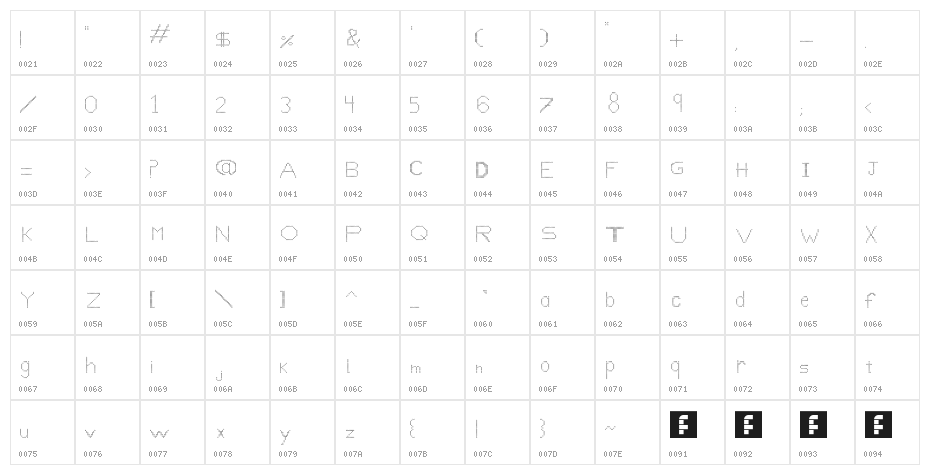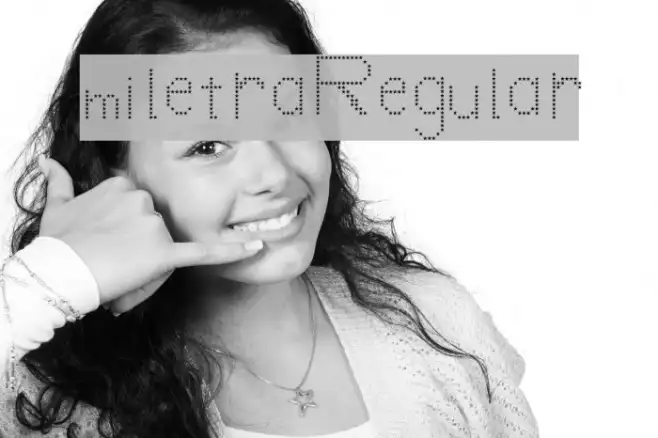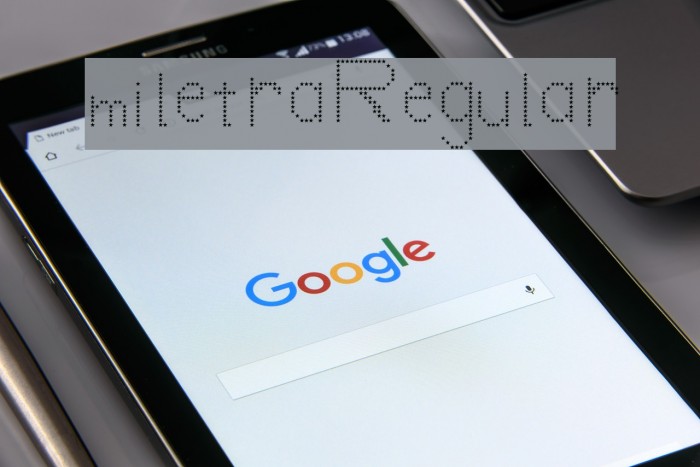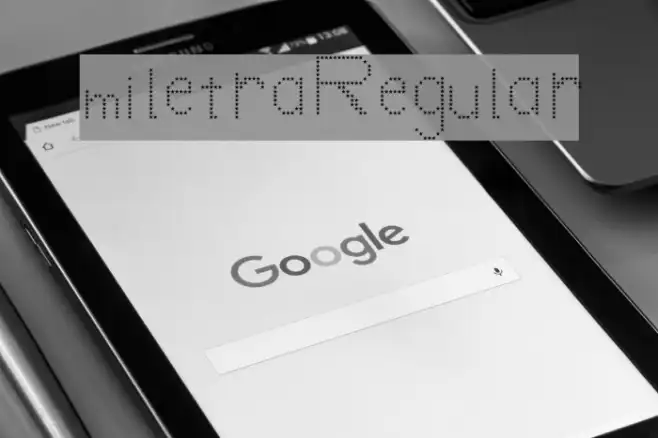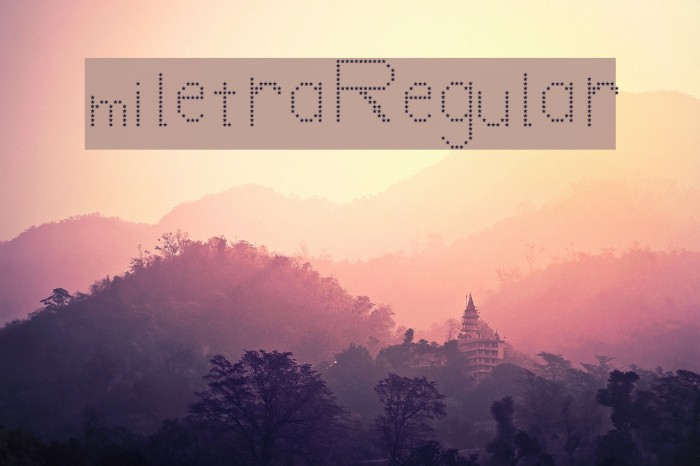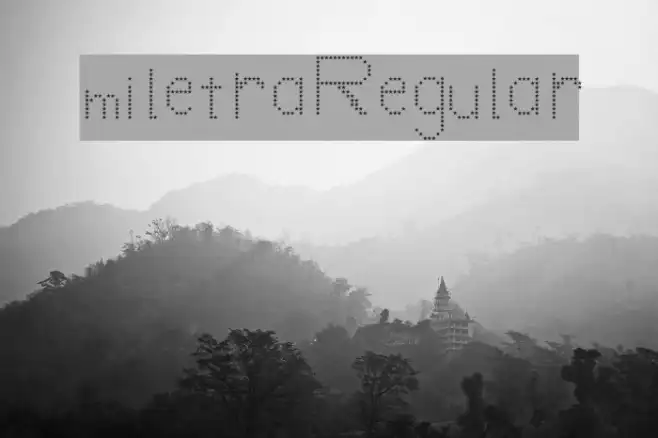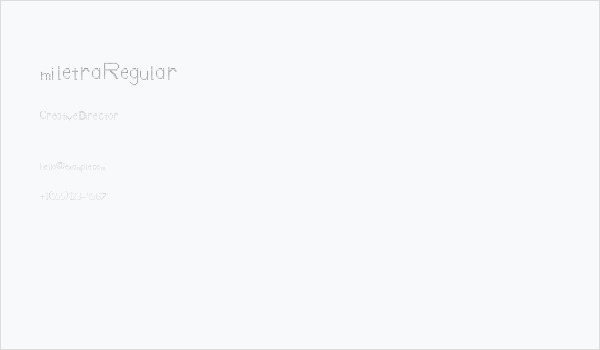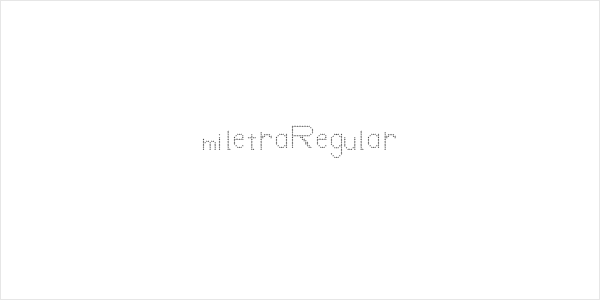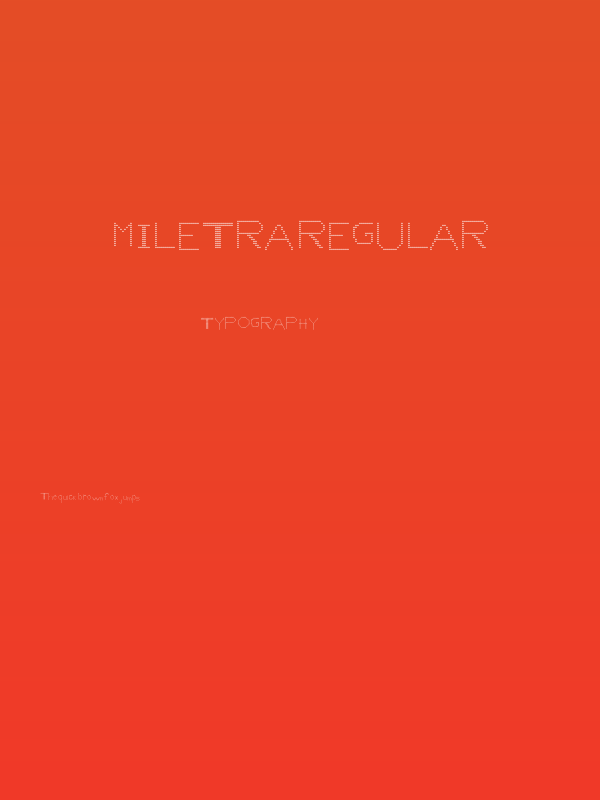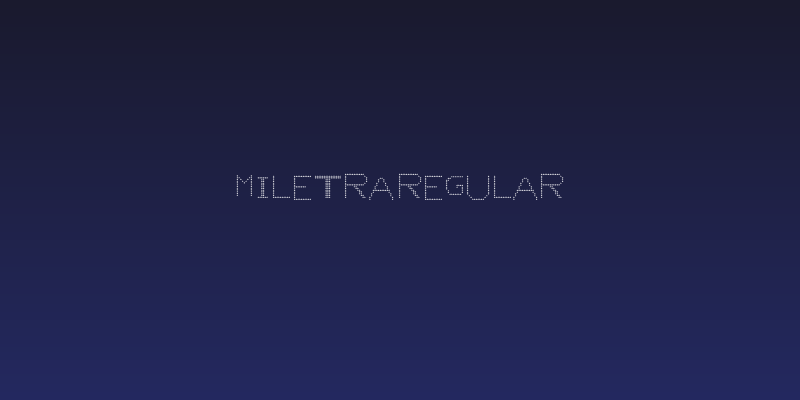
mi letra Regular Font
mi letra Regular Description
This font features a unique dotted design, where each character is composed of small, evenly spaced dots. The uppercase and lowercase letters maintain a consistent height and width, creating a uniform appearance. The numbers and special characters follow the same dotted pattern, ensuring a cohesive look across all elements. This style gives the font a modern and playful feel, making it stand out in any design. The spacing between the dots is precise, contributing to the font's readability despite its unconventional structure.
| Proposed Projects | Ideal for creative projects such as posters, invitations, and branding materials where a unique and eye-catching font is desired. |